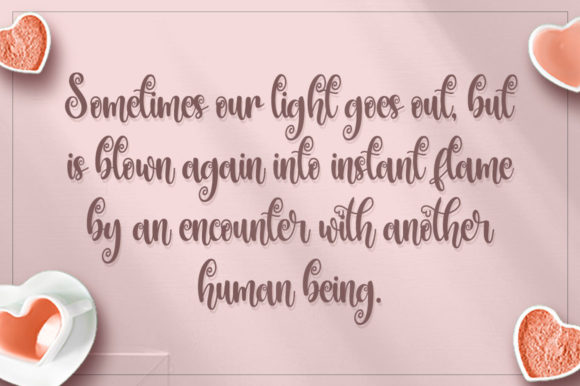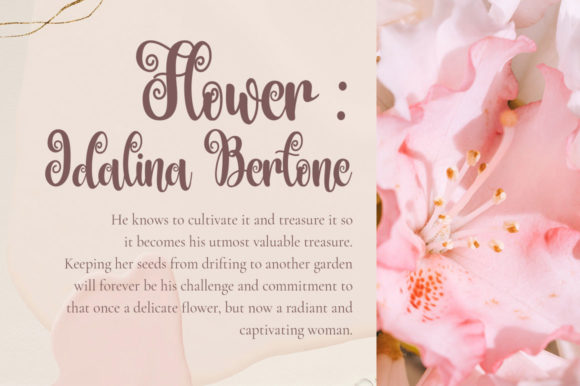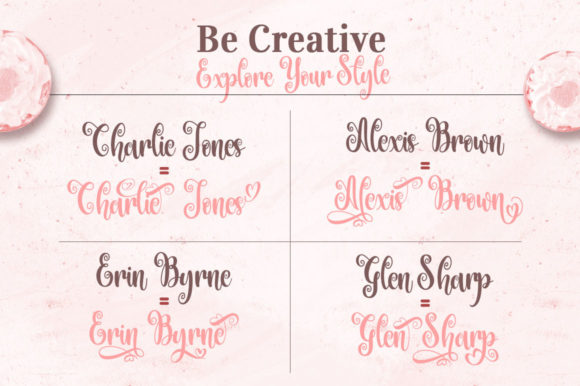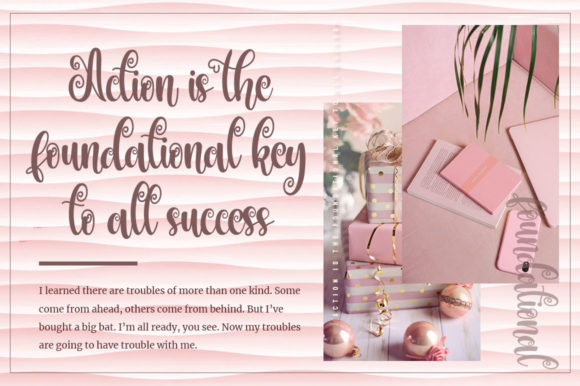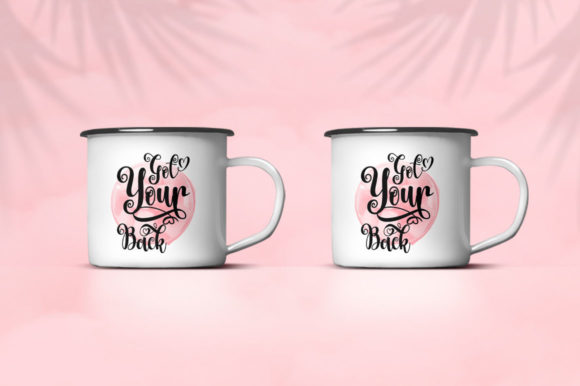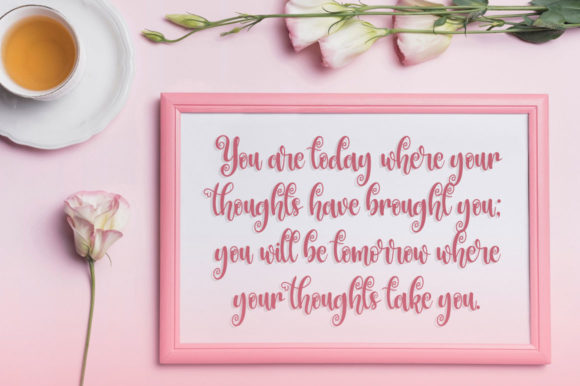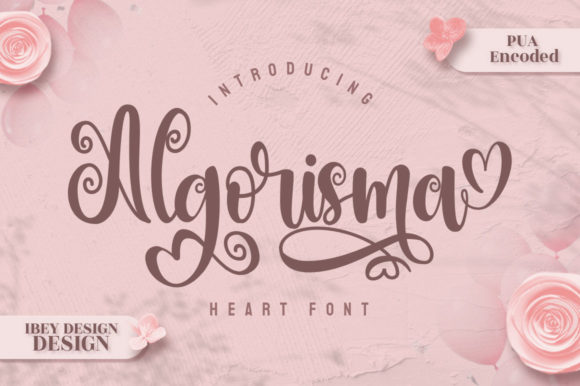
Introducing Algorisma Font: Elevate Your Designs with Elegance and Class
In the world of typography, a font can make or break a design. For those seeking a touch of sophistication and refinement, Algorisma Font is an exquisite choice. This lovely and delicate script font exudes elegance and class, making it perfect for designers and crafters looking to add a refreshing look to their creations.
What Makes Algorisma Font Special?
Algorisma Font was particularly crafted for those who need a beautiful and refreshing look to their designs. Its unique and flowing script style is sure to capture the attention of your audience and leave a lasting impression. Whether you’re working on a branding project, wedding invitation, or social media graphics, Algorisma Font is an excellent choice.
One of the standout features of Algorisma Font is its PUA (Private Use Area) encoding. This means that you can access all glyphs and swashes with ease, giving you greater flexibility and creative control over your designs. With PUA encoding, you can effortlessly navigate through the font’s extensive character set, including alternates, ligatures, and ornaments.
Algorisma Font is versatile and can be used for a wide range of design applications, including:
- Branding and logos: Create a lasting impression with a sophisticated and elegant brand identity.
- Wedding and event invitations: Add a touch of romance and whimsy to your wedding or event invitations.
- Social media graphics: Elevate your social media presence with eye-catching graphics and typography.
- Packaging and product design: Stand out on store shelves with beautifully designed packaging.
- Stationery and paper goods: Create lovely and professional-looking stationery, journals, and paper goods.
Why Choose Algorisma Font?
With so many fonts available, why choose Algorisma Font? Here are just a few reasons:
- Unique and elegant script style: Algorisma Font boasts a distinctive and refined script style that will set your designs apart.
- PUA encoding for easy access: With PUA encoding, you can easily access all glyphs and swashes, making it simple to create stunning designs.
- High-quality and versatile: Algorisma Font is perfect for a wide range of design applications, ensuring that you can use it again and again.
- Beautiful and refreshing look: Algorisma Font is designed to add a touch of elegance and class to your designs, making it perfect for those seeking a sophisticated look.
Tips for Using Algorisma Font
To get the most out of Algorisma Font, here are a few tips:
- Pair with bold fonts: Combine Algorisma Font with bold fonts for a striking contrast.
- Experiment with swashes: Take advantage of Algorisma Font’s swashes to add a touch of elegance to your designs.
- Use for headlines and titles: Algorisma Font is perfect for headlines and titles, adding a touch of sophistication to your designs.
In conclusion, Algorisma Font is a stunning and elegant script font that is sure to elevate your designs. With its PUA encoding, unique script style, and versatility, it’s an excellent choice for designers and crafters seeking a beautiful and refreshing look. Whether you’re working on a branding project, wedding invitation, or social media graphics, Algorisma Font is a perfect choice. So why wait? Discover the beauty of Algorisma Font and take your designs to the next level!